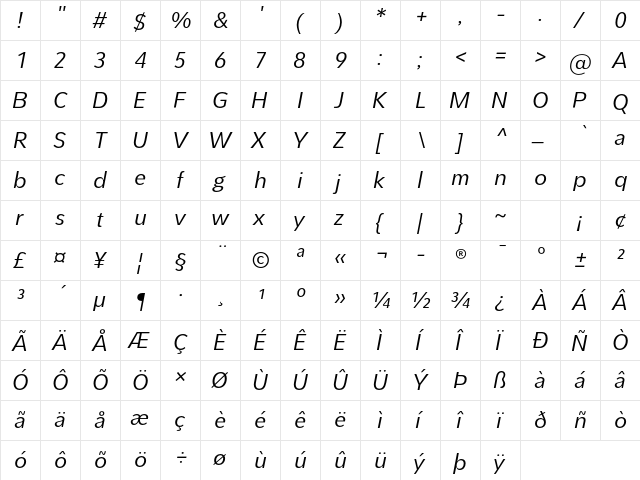
Pelita Grande Std Italic
| Designer | Anugrah Pasau |
Design Context for Pelita Grande Std Typeface
Pelita Grande Std is a composed and adaptable typeface that performs quietly and consistently across a wide range of design contexts. The dynamic lean of this cut emphasises speed and emphasis in any layout.